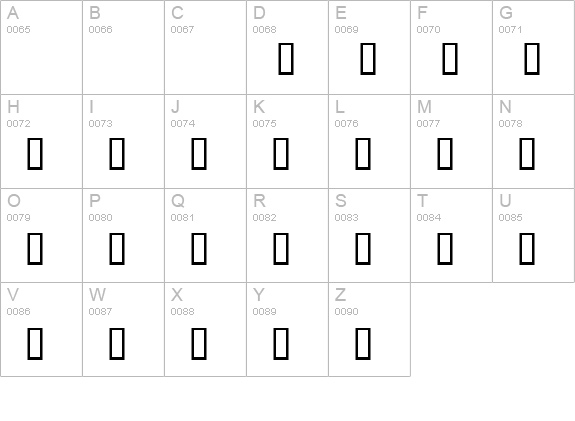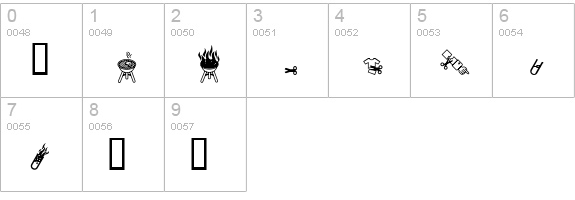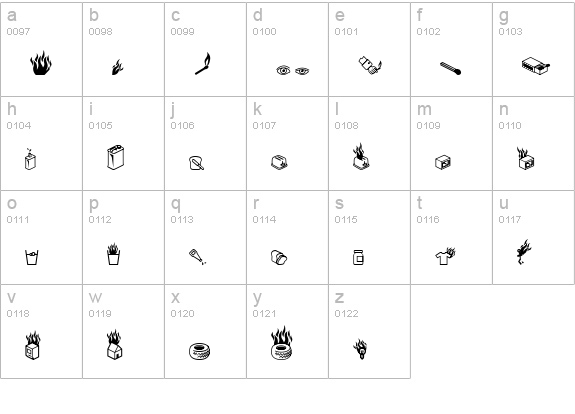
Pyrobats Font Details
Introducing Pyrobats font, a dynamic and fiery typeface that will set your designs ablaze with its bold and captivating presence. This unique font combines sleek lines and sharp edges to create a visually stunning effect that is perfect for making a statement in your projects. Pyrobats font is not only visually striking, but also versatile, making it suitable for a wide range of design applications. Whether you're creating posters, logos, branding materials, or web graphics, Pyrobats font will add a touch of fire and energy to your work. Best of all, Pyrobats font is available for free download at FontsMarket.com, making it easily accessible to designers and creatives looking to add a fiery edge to their projects. Don't miss out on the opportunity to elevate your designs with the bold and dynamic Pyrobats font today!